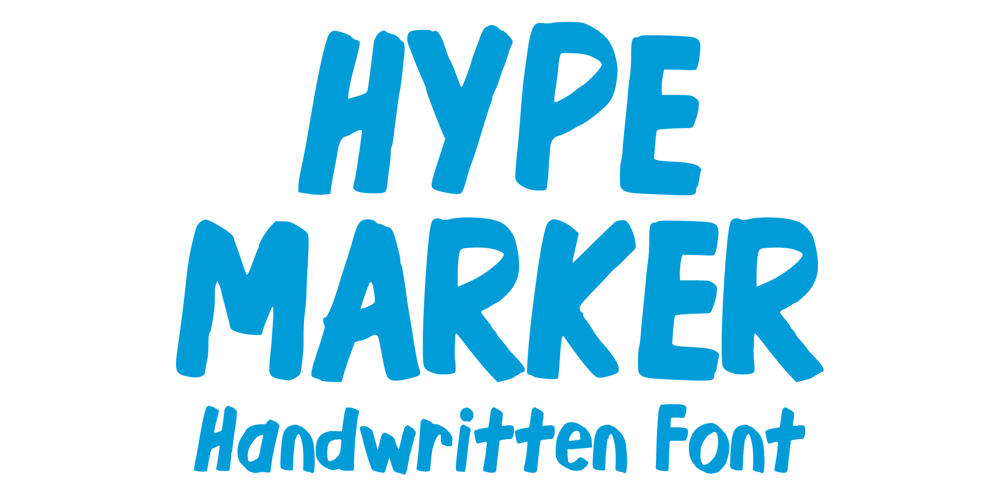
Hype Marker Font Family was designed by Gabriel Valentinus and published by Mvmet. Hype Marker contains 1 styles and family package options. Hype Marker is a cool marker hand lettered font. You can use it for anything ranging from t-shirts, book designs, and greeting cards to stickers and posters, packaging designs, or anything that needs a casual touch, it will be your perfect font to pick. Fall in love with its incredibly versatile style, and use it to create lovely designs!